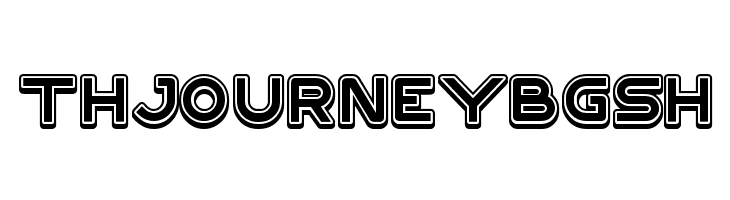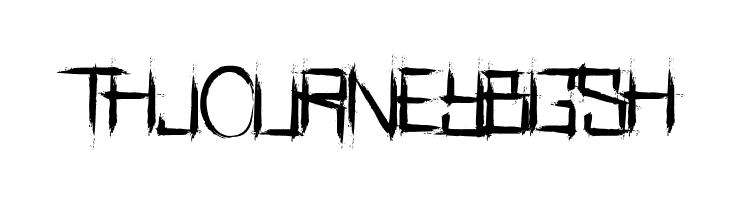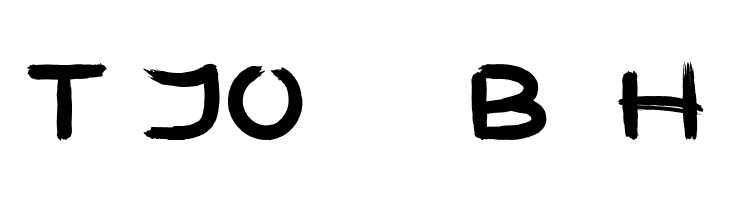
A bold, geometric font with high contrast and a vintage-modern style.
A jagged, distressed font ideal for horror themes.
A bold, distressed font with a grunge-like, hand-drawn appearance.